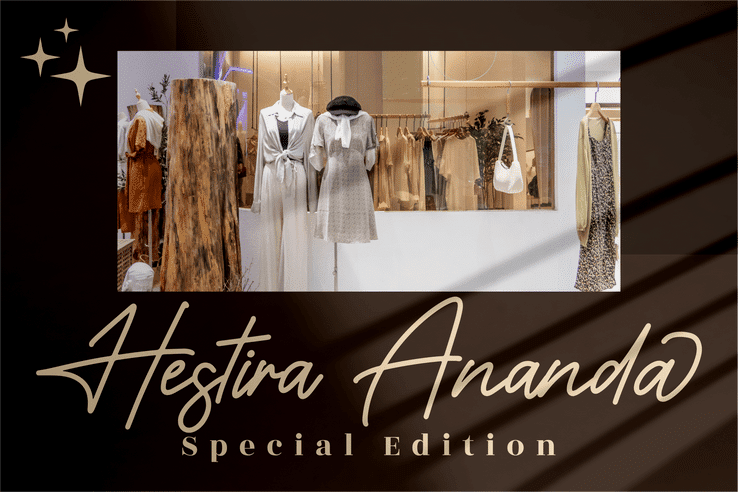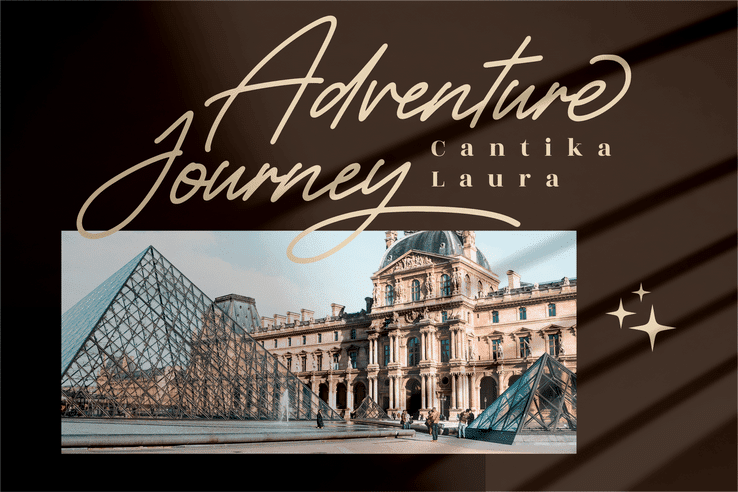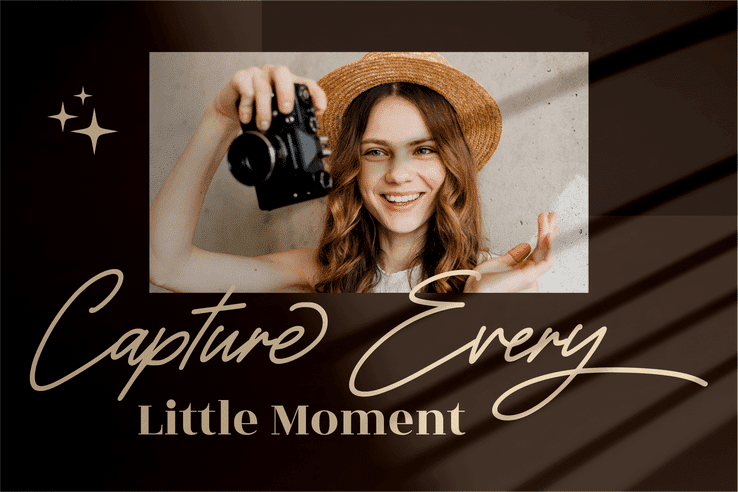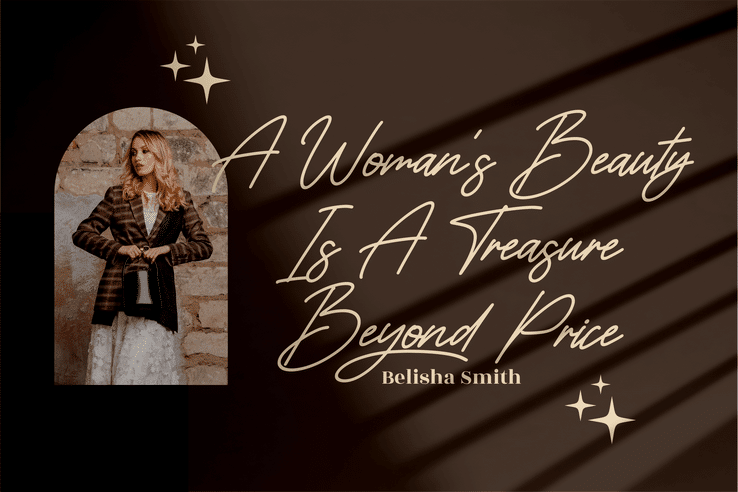
Hestteroid Brilliant Signature Font
Hestteroid Brilliant monogram Signature Font, from Perspectype Studio, is a premium signature font, suitable for any projects such as logos, branding projects, homeware designs, product packaging, mugs, quotes, posters, shopping bags, t-shirts, book covers, name card, invitation cards, greeting cards, label, photography, watermark, special events, and all your other luxury projects that need a premium signature taste.